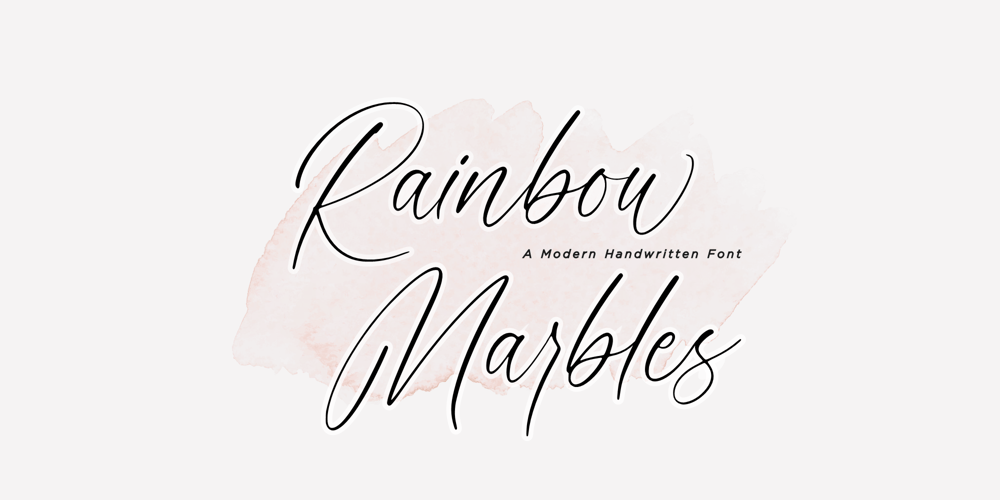
Rainbow Marbles Font Family was designed by Muhammad Fathurrohman and published by Aestherica Studio. Rainbow Marbles contains 1 styles and family package options. This is Rainbow Marbles by Aestherica Studio.Rainbow Marbles is a minimalist and elegant with unique curves and flowing modern script font. Rainbow Marbles is perfect for product packaging, branding project, megazine, social media, wedding, or just used to express words above the background.Rainbow Marbles also multilingual support.Enjoy the font, feel free to comment or feedback, send me PM or email.